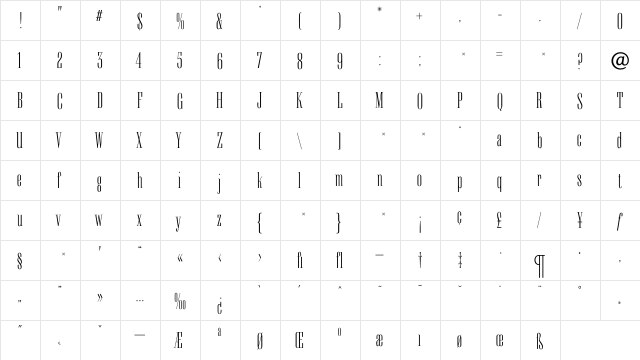
KeyboardLight Regular
Design Context for KeyboardLight Typeface
KeyboardLight takes a measured approach to typography — its balanced proportions and neutral character make it a reliable workhorse for both digital and print work. Its slender proportions lend an understated elegance to any composition.
Pro Tip: Use KeyboardLight in both headline and body roles to test its range before committing to a single application.